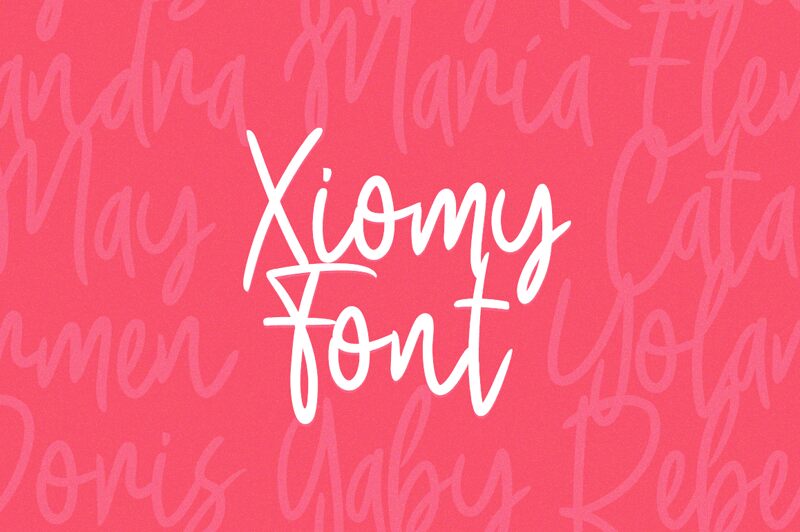
Xiomy
Xiomy is a light and narrow handwritten font designed by Juan Miguel Castillo. It's perfect for creative projects such as logo designs, posters, and greeting cards. Its unique style makes it also suitable for editorial projects, websites, and even t-shirt designs.
Juan Miguel Castillo